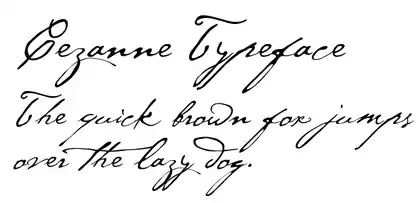
Cézanne (typeface)
Cézanne is a script typeface based on Paul Cézanne's handwriting. The typeface includes alternate characters and swashes. It was created for the Philadelphia Museum of Art by designers Michael Want and Richard Kegler and published by P22 type foundry in 1996.[1][2]
Cézanne typeface